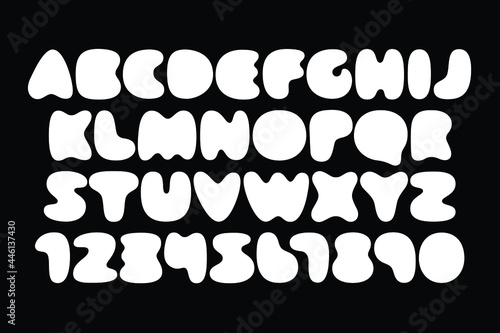
Soft, friendly and nice unicase latin and Cyrillic font, designed for maximum visual and emotional impact, great for branding, social media, headlines, large-format print, editorial and swag design.